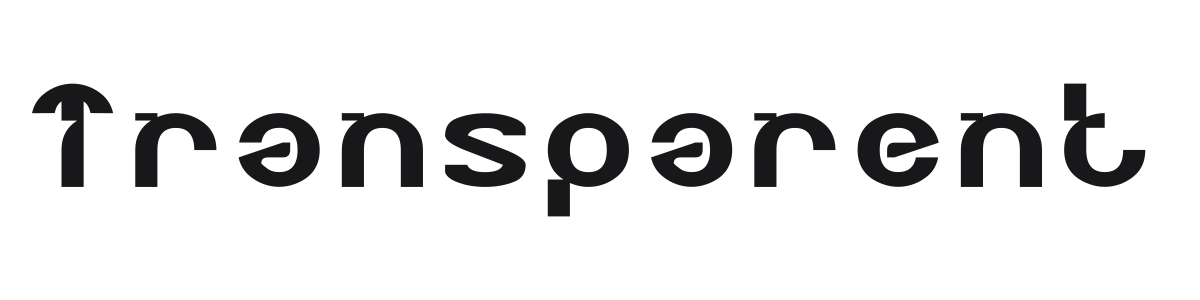
Transparent
Transparent is a bold geometric sans where strokes and bowls are deliberately cut away to create an open, see-through effect. The circular, rounded forms carry heavy weight but feel airy thanks to the negative space punched into each character. It commands attention at large sizes and works well in any context that needs a distinct, contemporary edge.